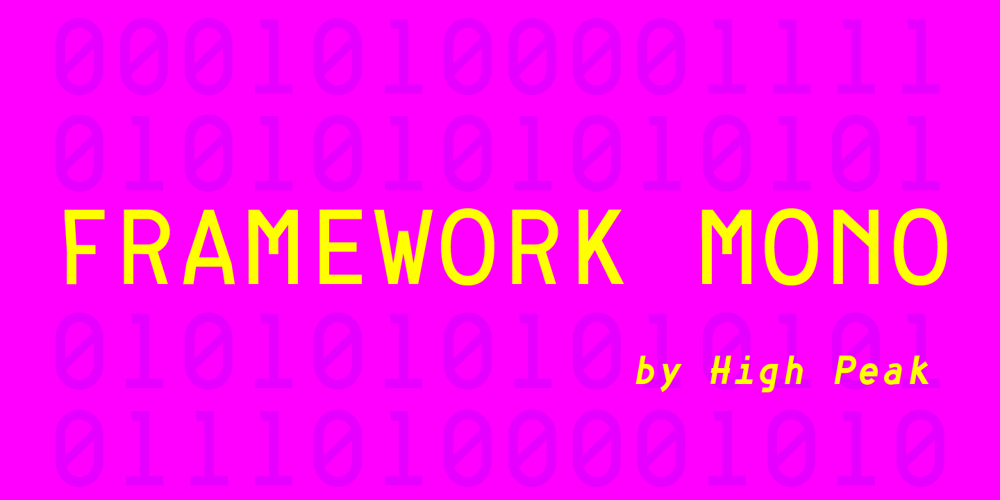
Framework Mono Font Family was designed by Francesco Franciosi and published by High Peak. Framework Mono contains 6 styles and family package options. Framework Mono is a modern monospaced typeface. A close relative of the original Mittelhorn font family, with whom it shares some letter and number design features, the two fonts are ideal companions. It comes in 3 weights, 3 uprights and matching italics. Designed with opentype features, each weight includes extended language support, fractions, arrows, ligatures and more. Perfectly suited for graphic design and for any display use. It could nicely work with code editors, web, editorial design, as well as corporate tabular data sheets and more. Enjoy!